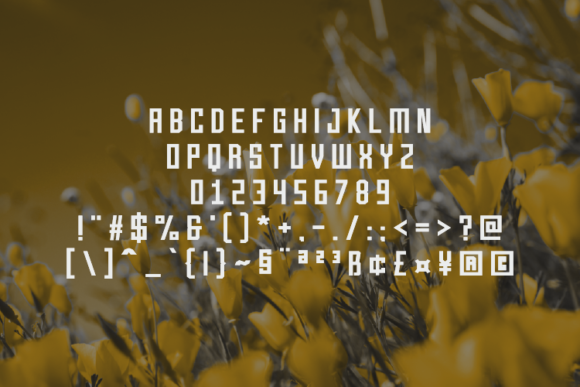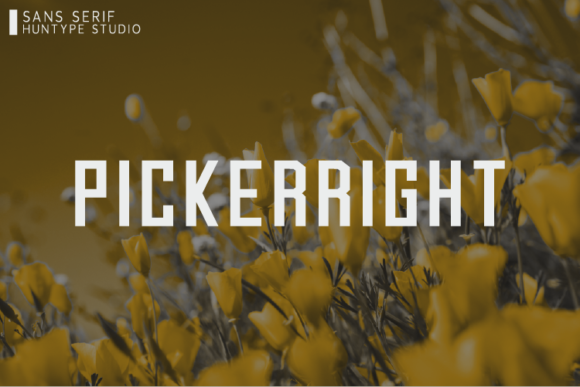
Introduction to Pickerright Font
Pickerright is inspired by classic typography and brings its own unique style to any design project.
Whether you’re looking for fonts for Instagram or calligraphy scripts for DIY projects, Pickerright will turn any creative idea into a true piece of art .
Key Features of Pickerright Font
Why Choose Pickerright Font?
Pickerright Font offers exceptional quality and versatility, making it a valuable addition to your design toolkit. Whether you’re creating for personal projects or commercial use, Pickerright Font delivers professional results.